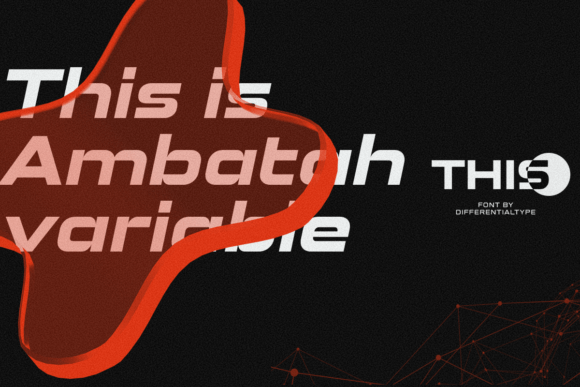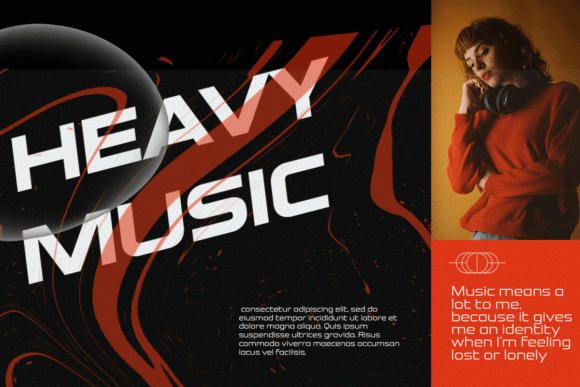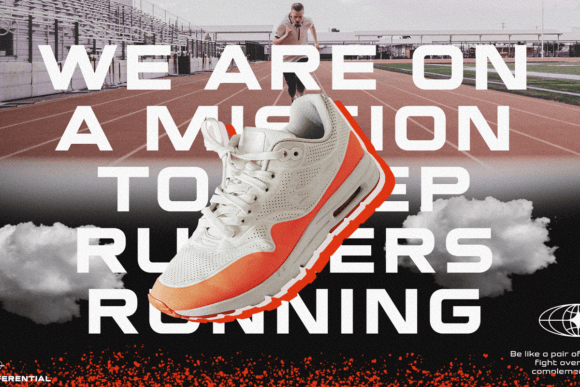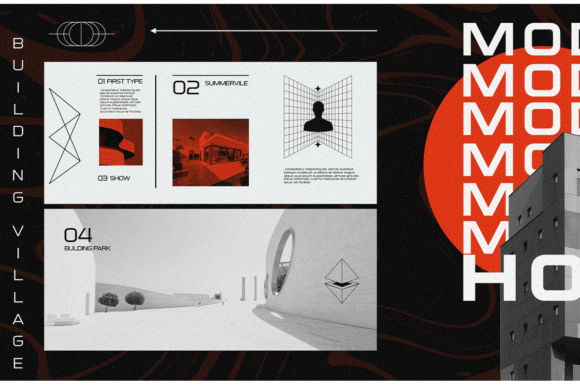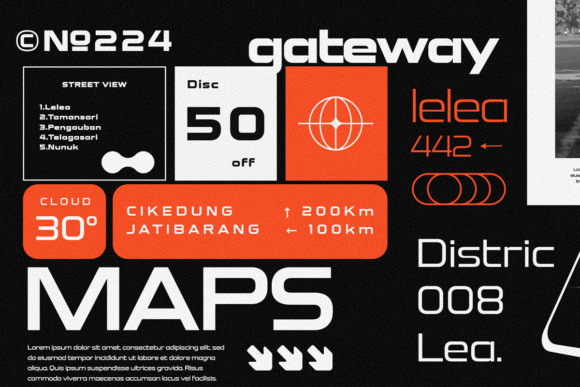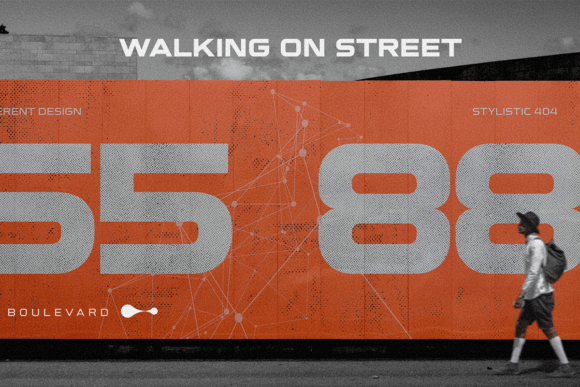
Unlocking Creative Potential with Ambatah Variable Font
Have you ever been in the middle of a design project, and suddenly, you’re stuck on finding the perfect font? I recall a particularly frustrating moment when a client requested a bold, yet elegant font for their branding project. After hours of scouring through font libraries, I stumbled upon Ambatah Variable, and it completely transformed my design process. In this article, we’ll dive into the world of Ambatah Variable, a versatile typeface that’s about to become your new best friend.
The Birth of Ambatah: A Story of Design Inspiration
Ambatah Variable was crafted with the intention of pushing the boundaries of typography. Its creators sought to design a font that could seamlessly integrate into various imaginative endeavors, from captivating headlines to stunning branding projects. The goal was to create a typeface that could adapt to different design needs, offering a range of weight variations that would provide endless pairing possibilities.
What I Love About Ambatah Variable
- ✨ Versatility: Ambatah offers a multifarious range of weight variations, from the subtly elegant thin to the commanding presence of extra bold.
- ✅ Seamless Integration: This adaptable font is crafted to make your headlines steal the limelight, let your branding projects bloom, invigorate your logos, and elevate your creative outputs to new heights.
- 💡 Endless Pairing Possibilities: With its wide range of weights, Ambatah broadens your horizons to infinite pairing possibilities, allowing you to experiment with different combinations.
While Ambatah Variable is an exceptional font, there are a few minor quirks to be aware of:
- 🤔 Glyph Limitations: Some users have reported that the font could benefit from a more extensive glyph set, particularly for non-English languages.
- ⚠️ OpenType Feature Support: As with any font, it’s essential to ensure that your design software supports OpenType features to take full advantage of Ambatah’s capabilities.
| Font Name | Ambatah Variable Font |
| Author | Differentialtype |
| What is Ambatah Variable? | Ambatah Variable is a versatile typeface designed to integrate seamlessly into various imaginative endeavors, offering a range of weight variations and OpenType features. |
| Is Ambatah suitable for body text? | While Ambatah Variable is primarily designed for headlines and display text, it can be used for body text in certain contexts. However, its legibility may vary depending on the weight and style used. |
| Does Ambatah support OpenType features? | Yes, Ambatah Variable supports OpenType features, including glyphs, stylistic alternates, and more. However, the level of support may vary depending on your design software. |
Ambatah Variable is a game-changing font that can elevate your creative outputs to new heights. With its versatility, adaptability, and range of weight variations, it’s an excellent addition to any designer’s toolkit. Whether you’re working on a branding project, crafting a logo, or simply looking to add some flair to your headlines, Ambatah Variable is sure to impress.